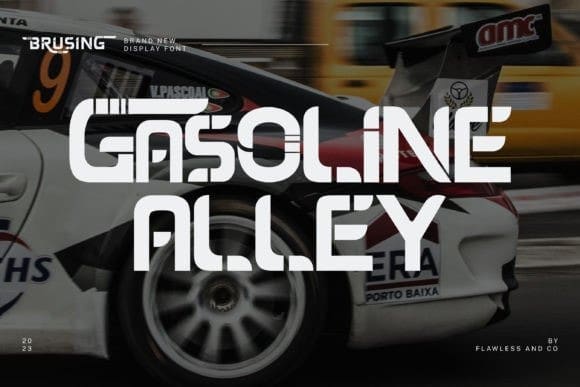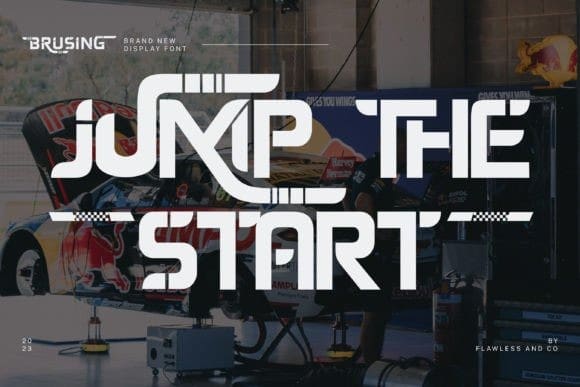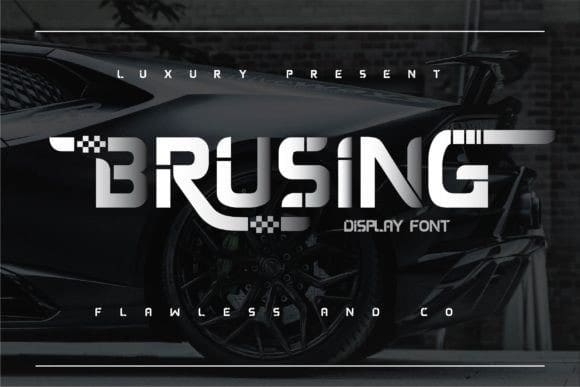
Brusing Display Font
Brusing Display Font is a bold display font tailor-made for the world of sports. Its impactful uppercase letterforms are perfect for creating attention-grabbing designs on jerseys, banners, and posters. With a dynamic and athletic feel, Brusing adds a powerful touch to sports branding and promotional materials. Ideal for various sports-related projects, this font is your go-to choice for making a strong visual statement.